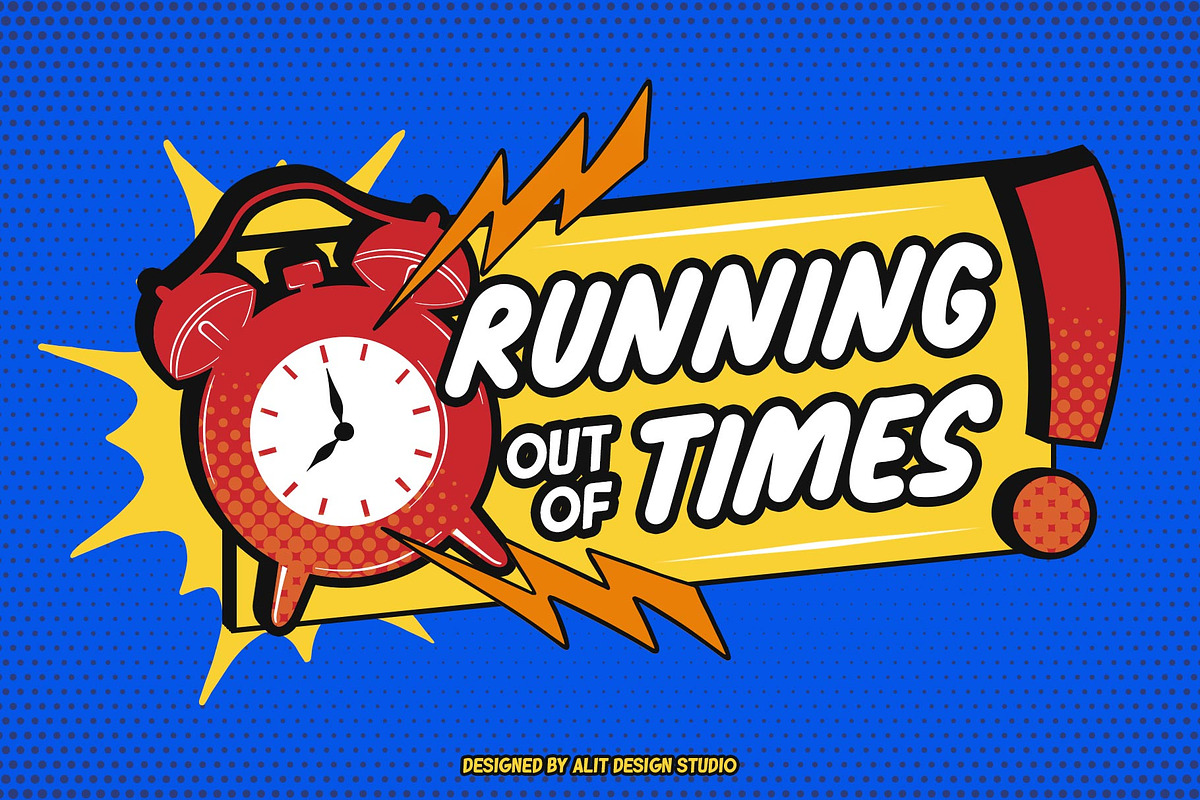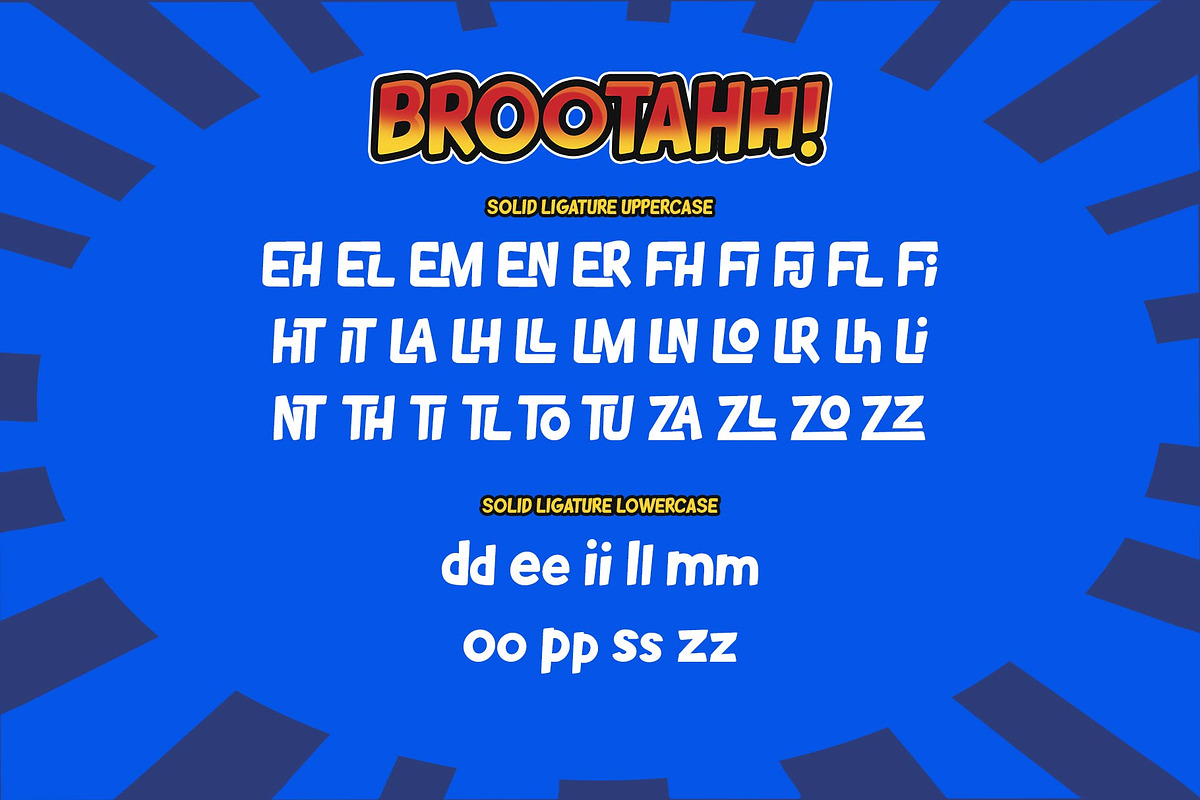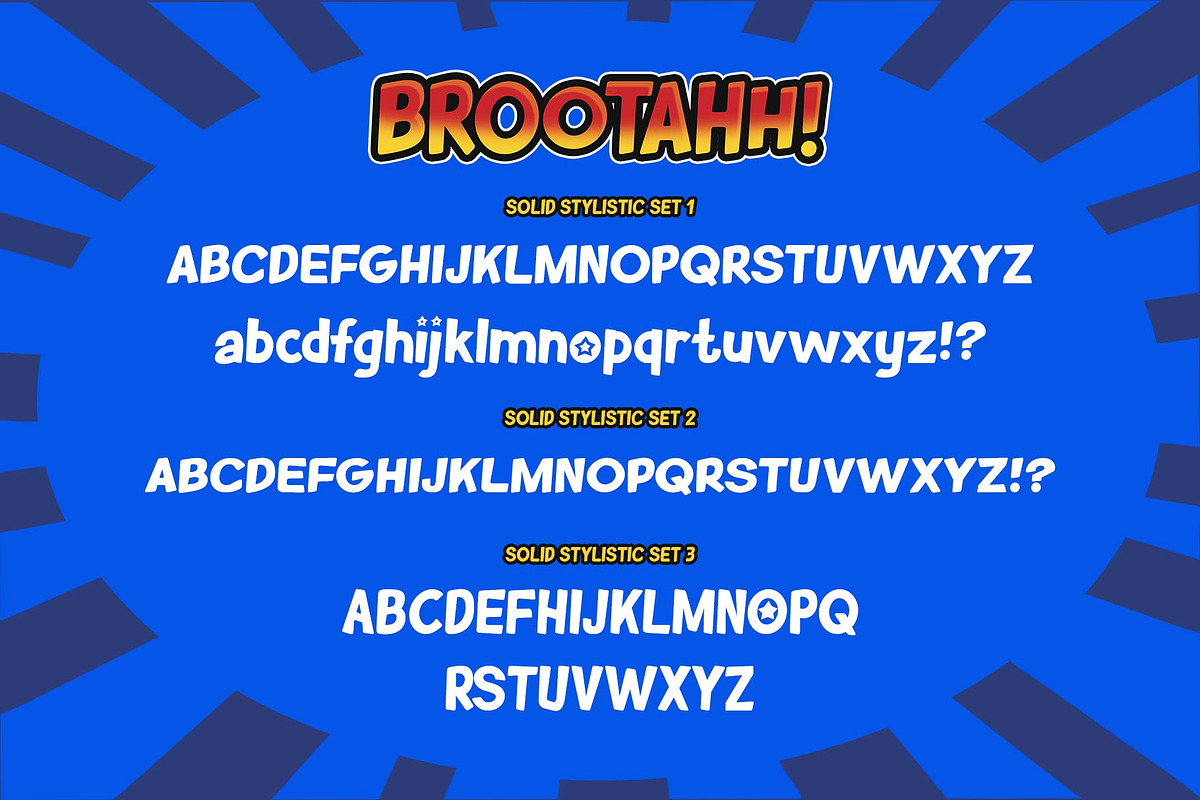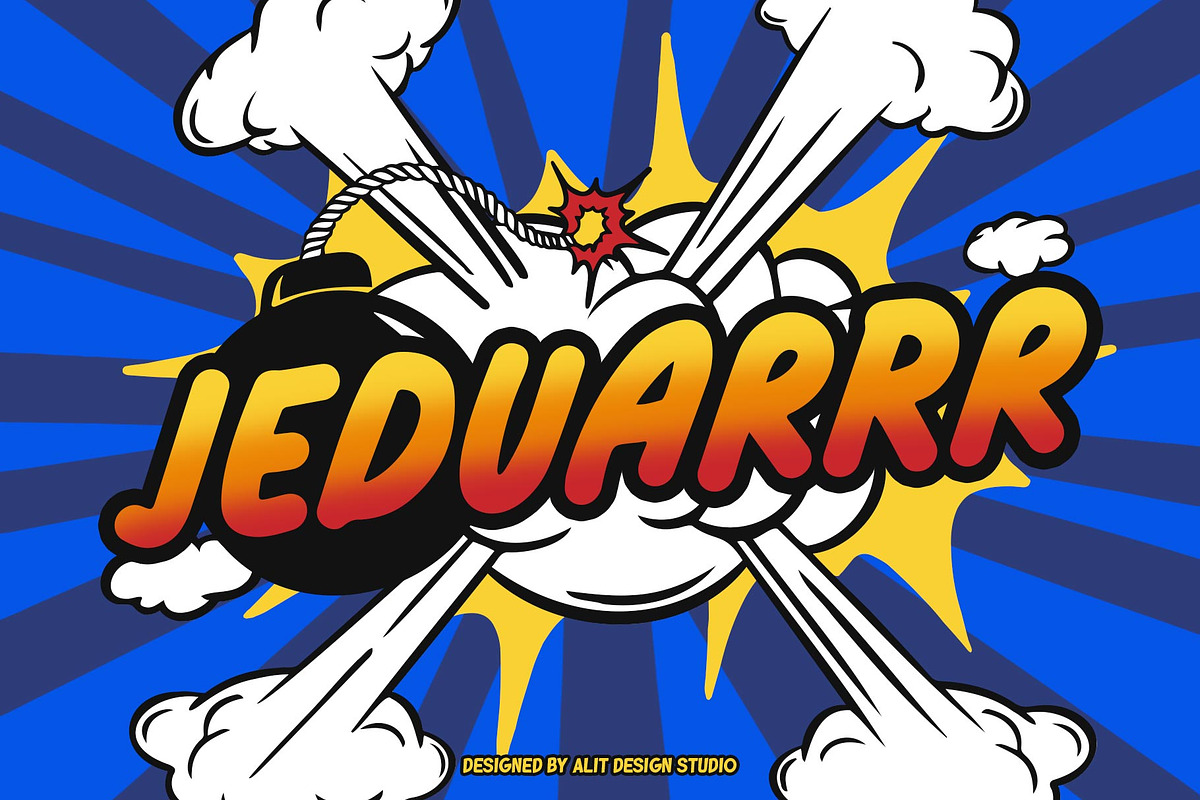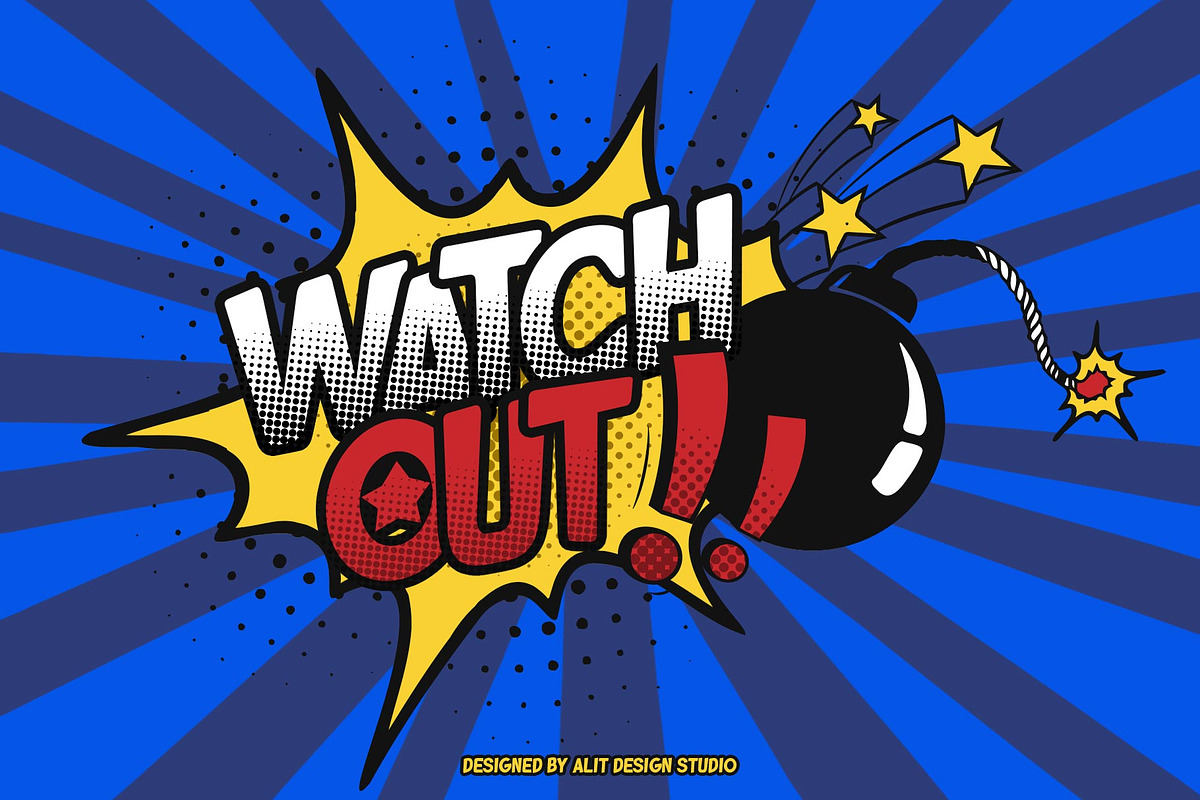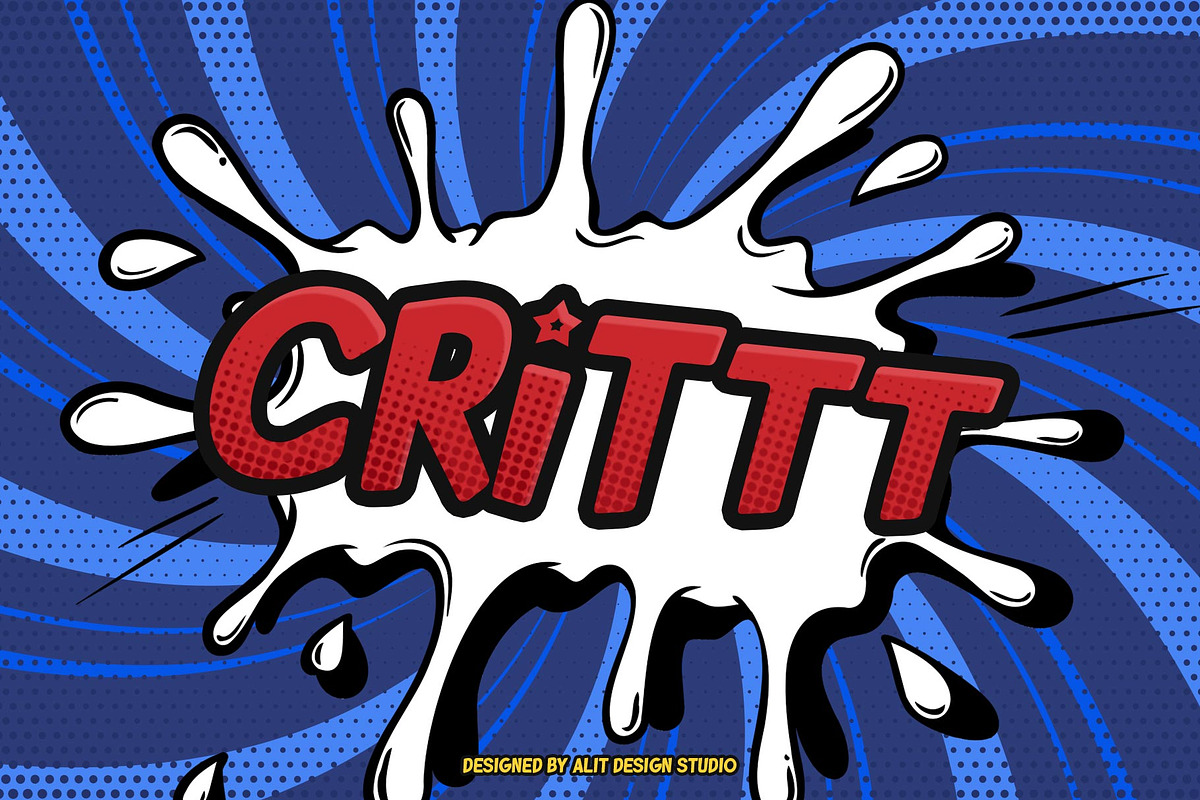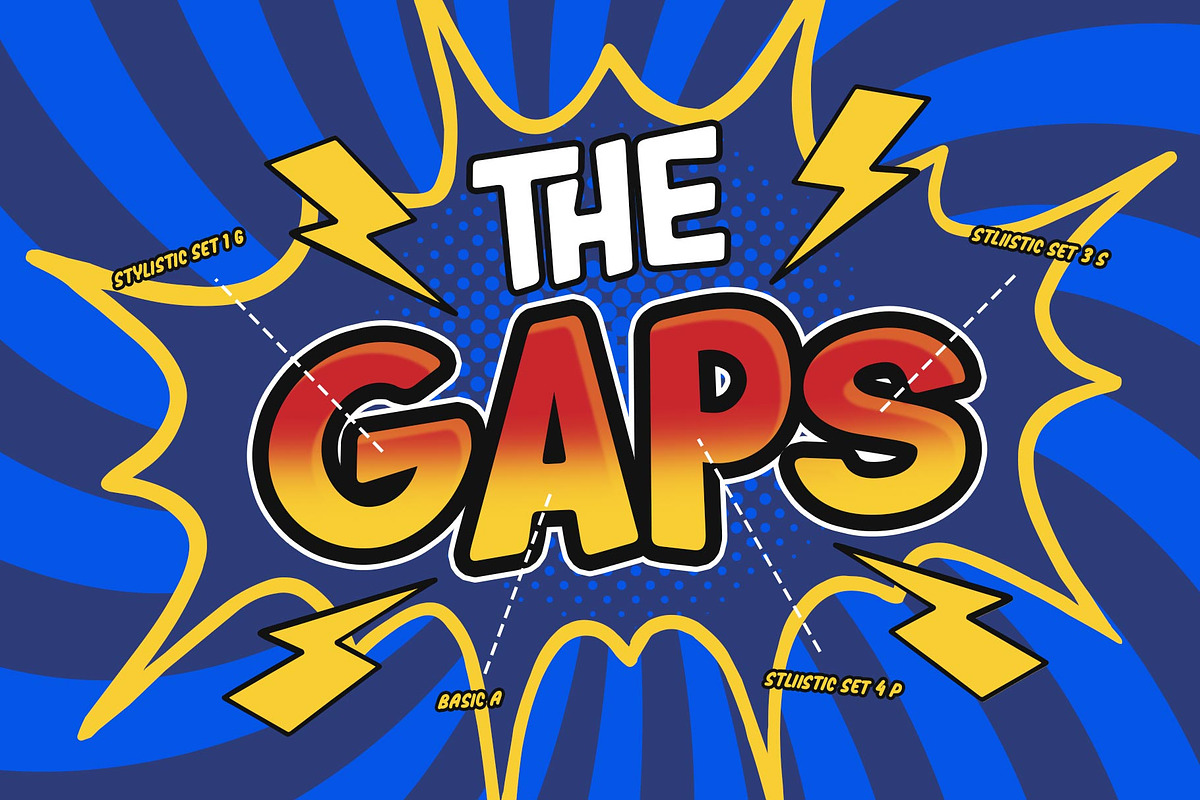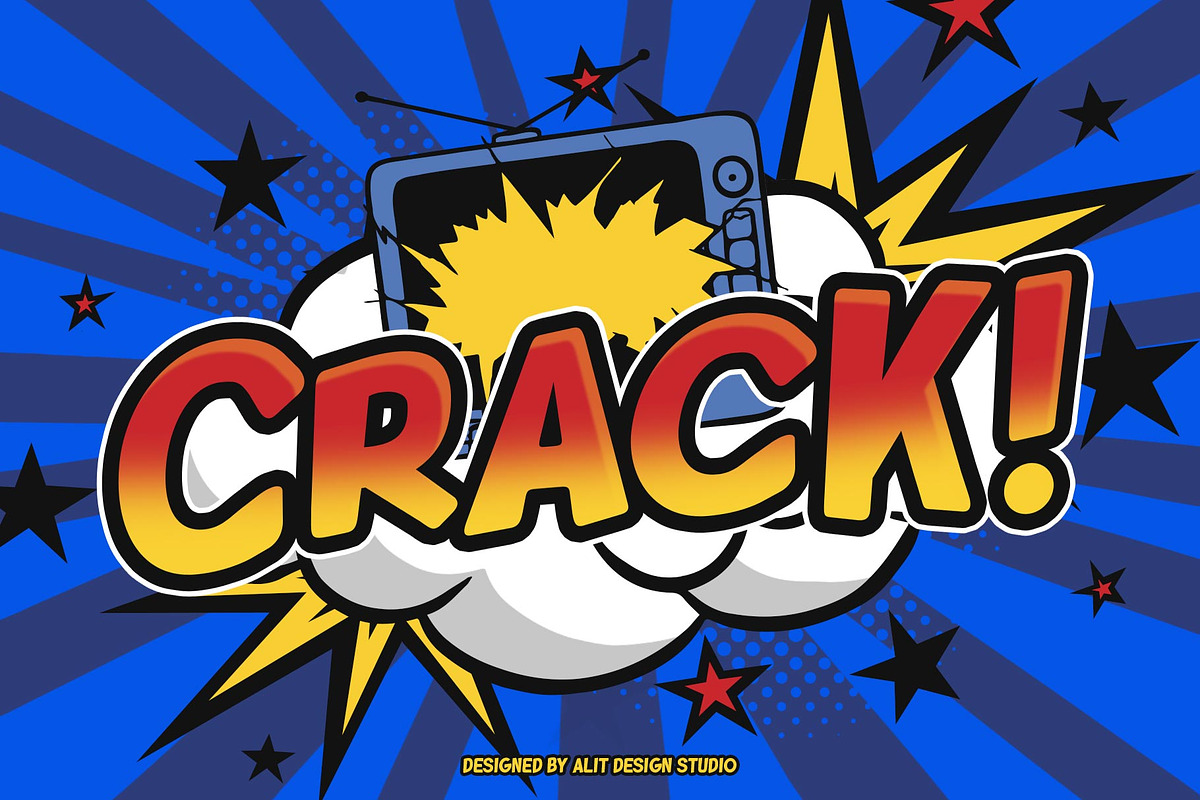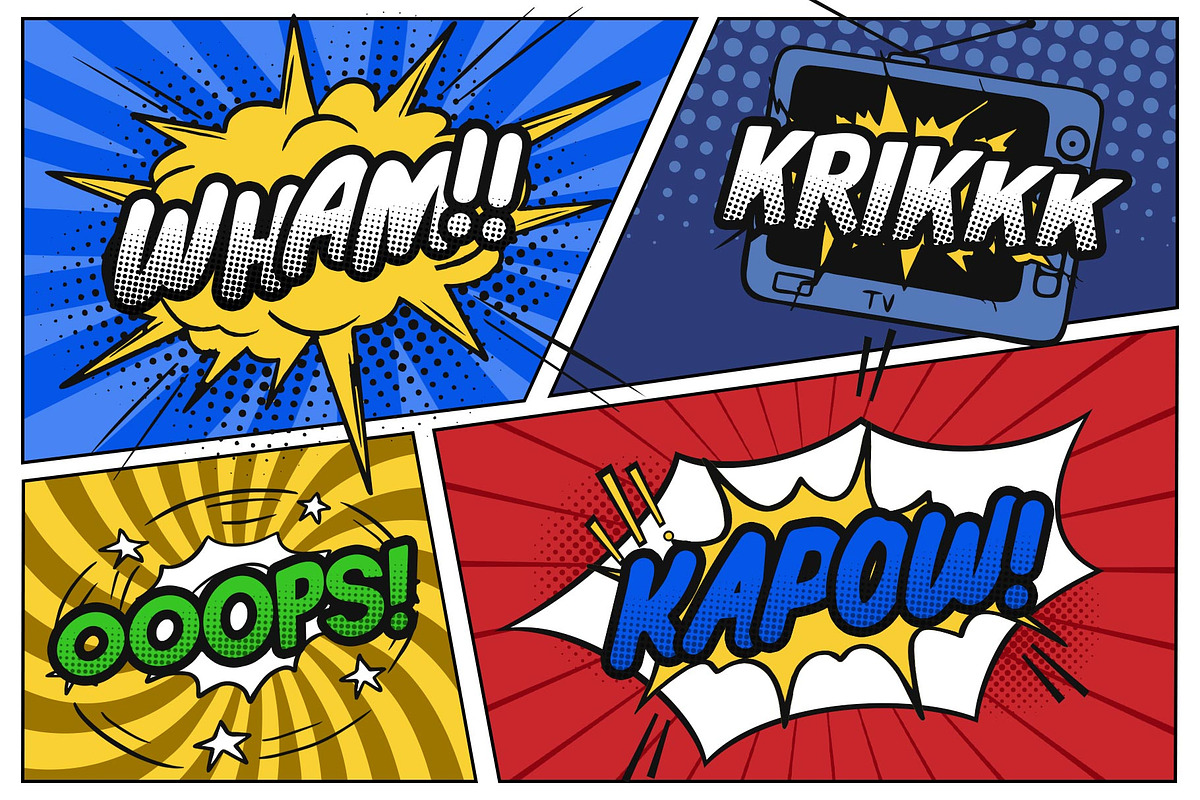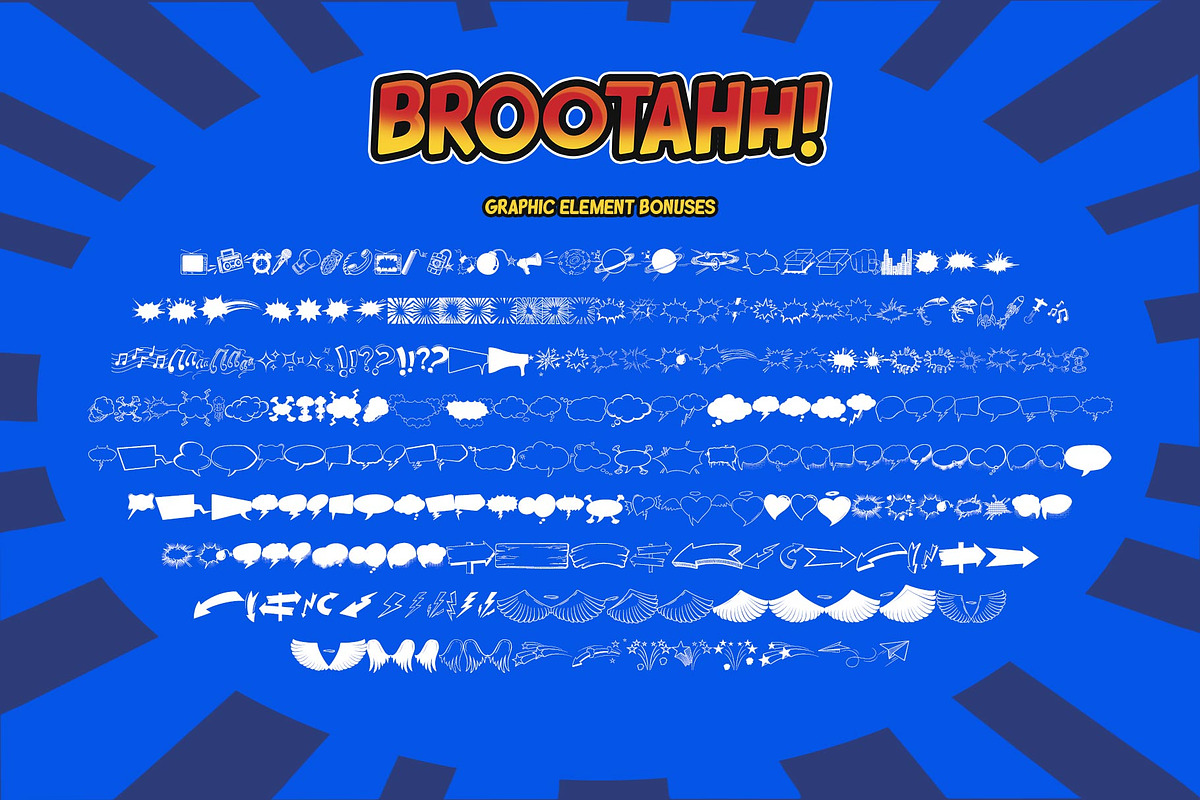
Brootahh Comic Typeface
Presenting the 🗯️💬The Brootahh Comic Typeface💬🗯️ by alitdesign.
The Brootahh Comics typeface is inspired by the style of letters in comics that have less serious and fun characters. The lettering of the Brootahh font is a sans serif with distorted characters which gives a fun and design impression for children. The Brootahh font has 2 families, namely the Brootahh Blup font which has more bubble characters that can support comic characters to be cooler. The Brootahh font is perfect for creating designs with non-serious concepts, designs for children, book headers, and of course for text on comics.
The Brootahh Comics typeface also gets a bonus character of 230 Comic-themed illustrations that make creating designs even easier. Simply by downloading The Brootahh Comics typeface creating a Comic and non formal themed design is very quick and easy.
The Brootahh Comics typeface is perfect for magazine cover designs, brochures, flyers. Instagram ads, Canva Design and so on with comic, non-serious, pop art, game mobile and fun design. Besides that this font is very easy to use both in design and non-design programs because everything changes and glyphs are supported by Unicode (PUA).
The Brootahh Comics typeface contains 618 and Brootahh Blup 498 + 230 bonus glyphs with many unique and interesting alternative options.
Language Support : Latin, Basic, Western European, Central European, South European,Vietnamese.